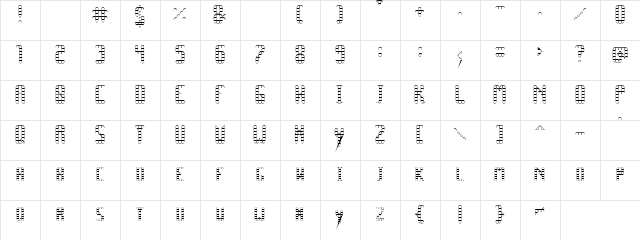
SPACE PEZ Outline
| Style | Outline |
| Foundry | Nils von Blanc (www-nils-von-Blanc.de) |
| Designer | Nils von Blanc |
Design Context for SPACE PEZ Typeface
SPACE PEZ is built around its visual character rather than neutral utility — its distinctive forms are designed to make an impression at display sizes.